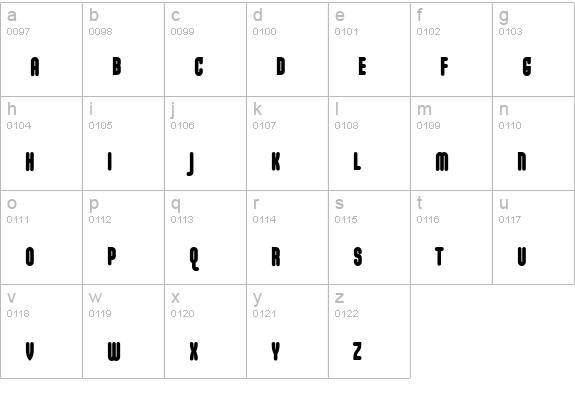
ModulaRoundSmallCaps-Black Font Details
ModulaRoundSmallCaps-Black is a maximum-weight, dramatic variant in the ModulaRoundSmallCaps typeface family \xE2\x80\x94 well suited to maximum-impact headlines, posters, and packaging.
ModulaRoundSmallCaps-Black font is a stylish and modern typeface that exudes sophistication and elegance. Its bold and eye-catching design makes it perfect for creating impactful headlines, titles, and branding materials. The small caps style adds a unique touch to any project, giving it a professional and polished look. The ModulaRoundSmallCaps-Black font is available for free download at FontsMarket.com. This means that you can easily access and use this high-quality font in your projects without any cost. Whether you're designing a logo, poster, website, or any other creative project, this font is sure to make a statement and leave a lasting impression. With its clean lines, sharp edges, and contemporary aesthetic, ModulaRoundSmallCaps-Black font is versatile enough to be used in a variety of design applications. Its bold weight ensures visibility and readability, making it a great choice for both print and digital media. Elevate your designs with this stunning font and make a lasting impact on your audience.